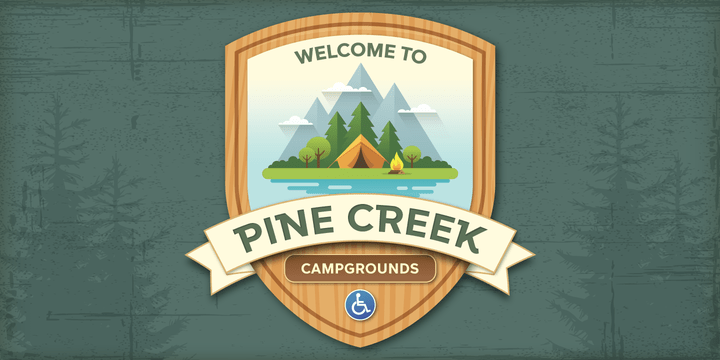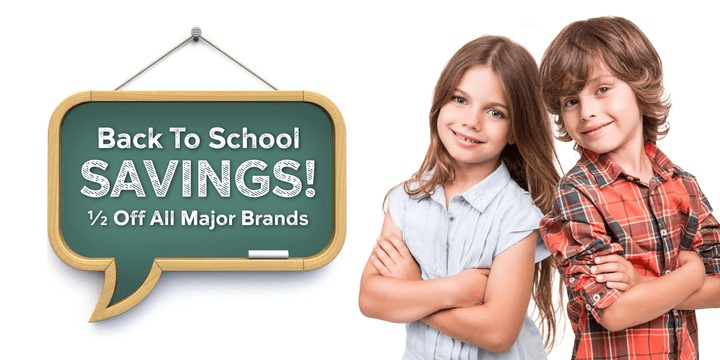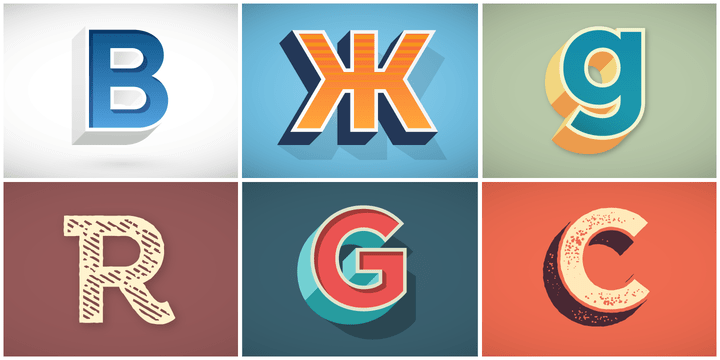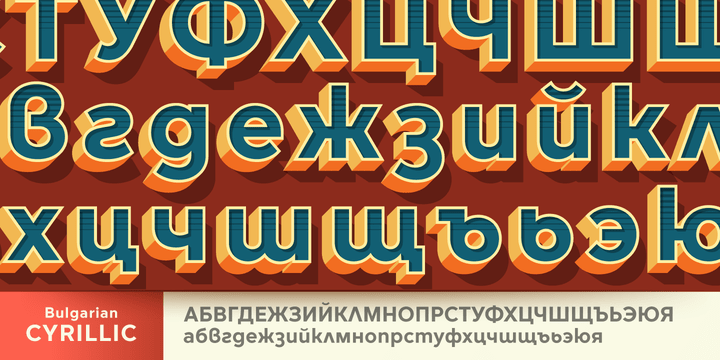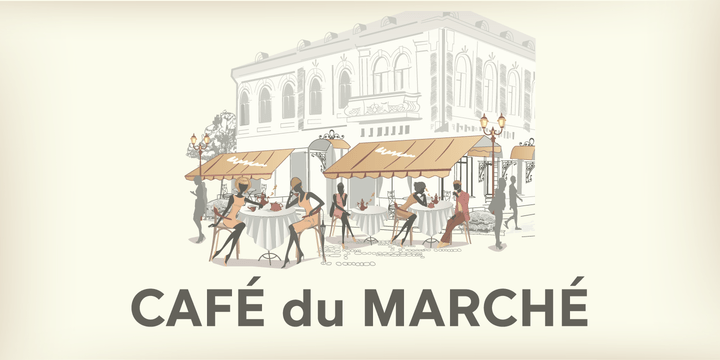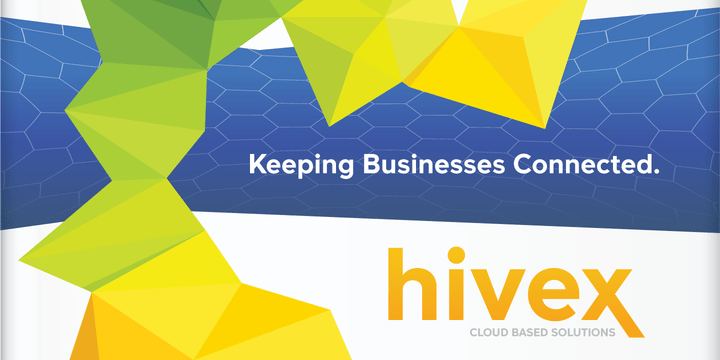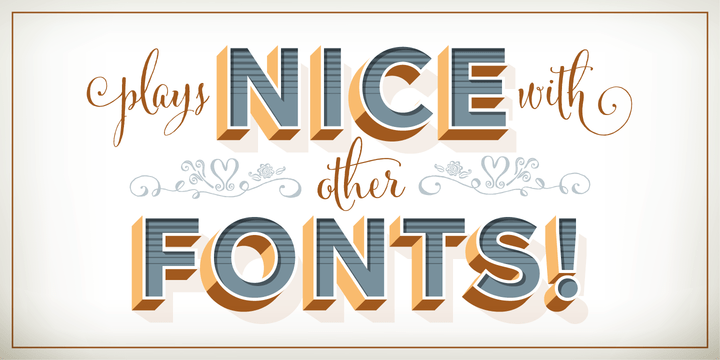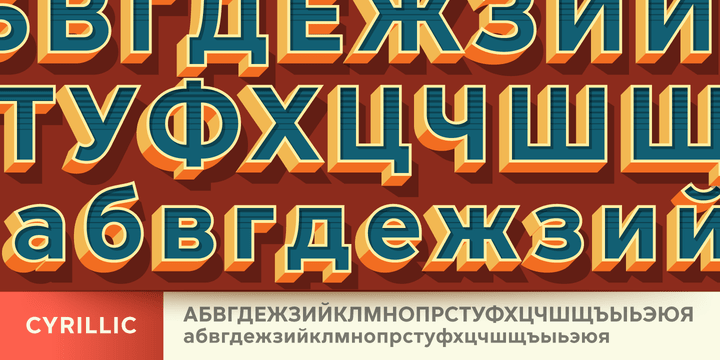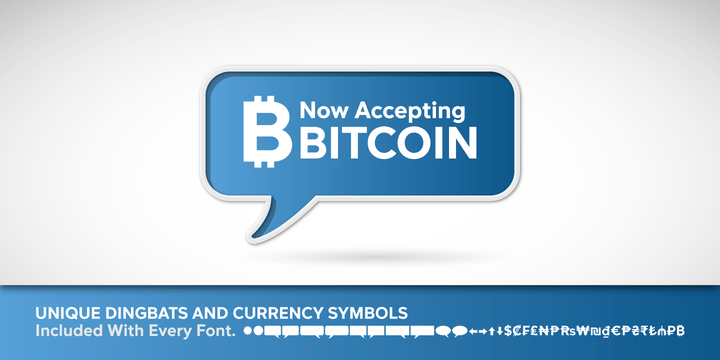
Versatile
Versatile Bold is the first entry into the Versatile type family of weights & italics from Borges Lettering. While other sans-serif fonts tend to be rigid and cold, Versatile stands out with it's warm and natural feel. It's generous x-height aids in its legibility and function, and the forms are modern yet classic allowing this font to live up to its name as a truly versatile workhorse for your next design or layout.
Versatile contains 3 different styles: Bold, Hatch and Rust (sold separately). Each style contains one body and six display sub-families which gives you the ability to stack seven layers to create interesting and eye-catching designs that will make your customers take notice. Playing with the different layers creates a vast array of design options.
Versatile Bold is not just for the Graphic Designer. It's well suited for the Sign Maker, Cricut and Silhouette users, and anyone else who uses a vinyl plotter. It weeds beautifully in cut vinyl. Its different layers allow the user to stack multi-colored vinyl to create one a kind signs and displays.
Versatile Bold is ideally suited for advertising and packaging, logo, branding and creative industries, poster and billboards, signage as well as web and screen design.